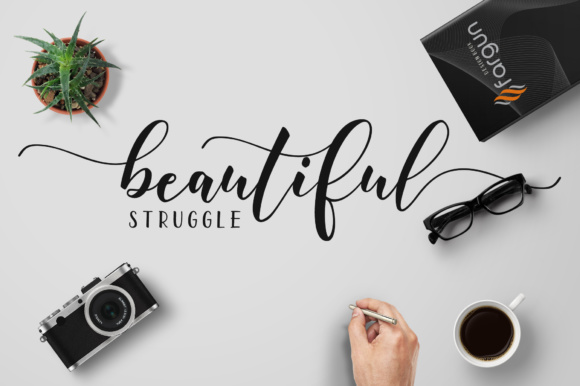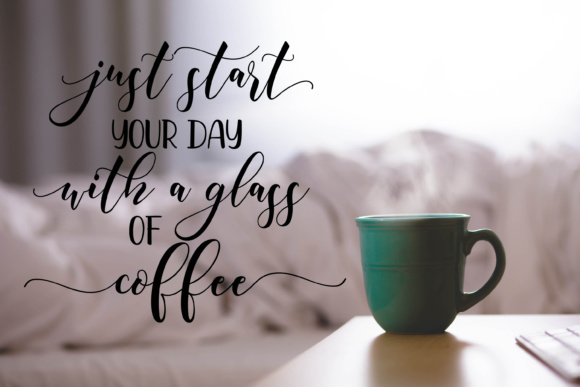
Heathens Script Font
db-ku.com - Script & Handwritten -- Heathens is a fresh, modern calligraphy-style font. It features decorative characters and has a dancing baseline, making the texts flow on the screen.